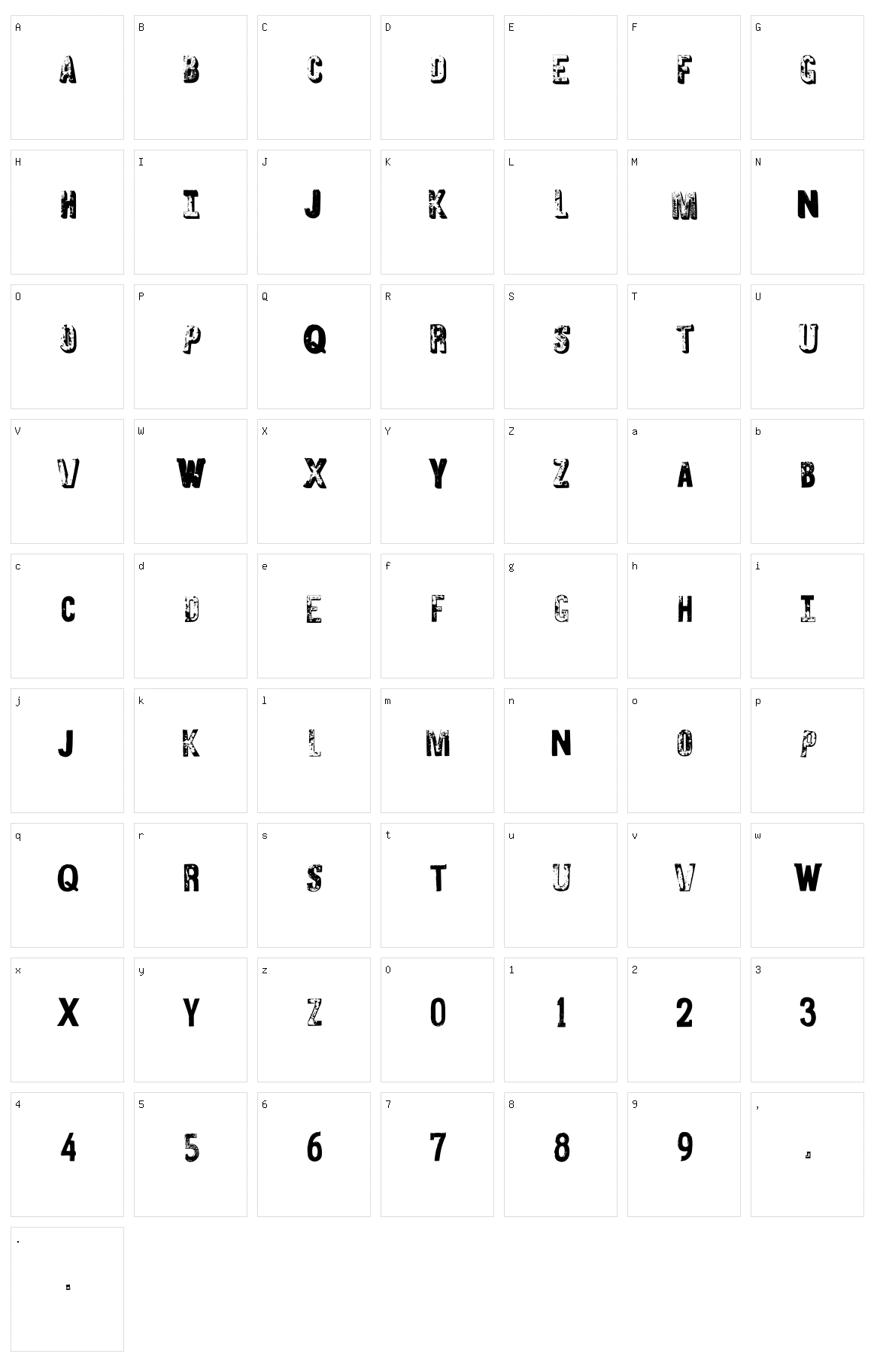
The free font Seven And Storm is carefully designed by Dimitri Castrique, showcasing a thoughtful balance of creativity and usability and falls under the Eroded font style. When you download the ZIP file, it contains only 30268.23 KB of font files, making it lightweight and quick to download. Please review the license details below to understand permitted usage and distribution rights. If license information is not available, we recommend using this font for personal projects only or contacting the author directly for commercial usage permissions.